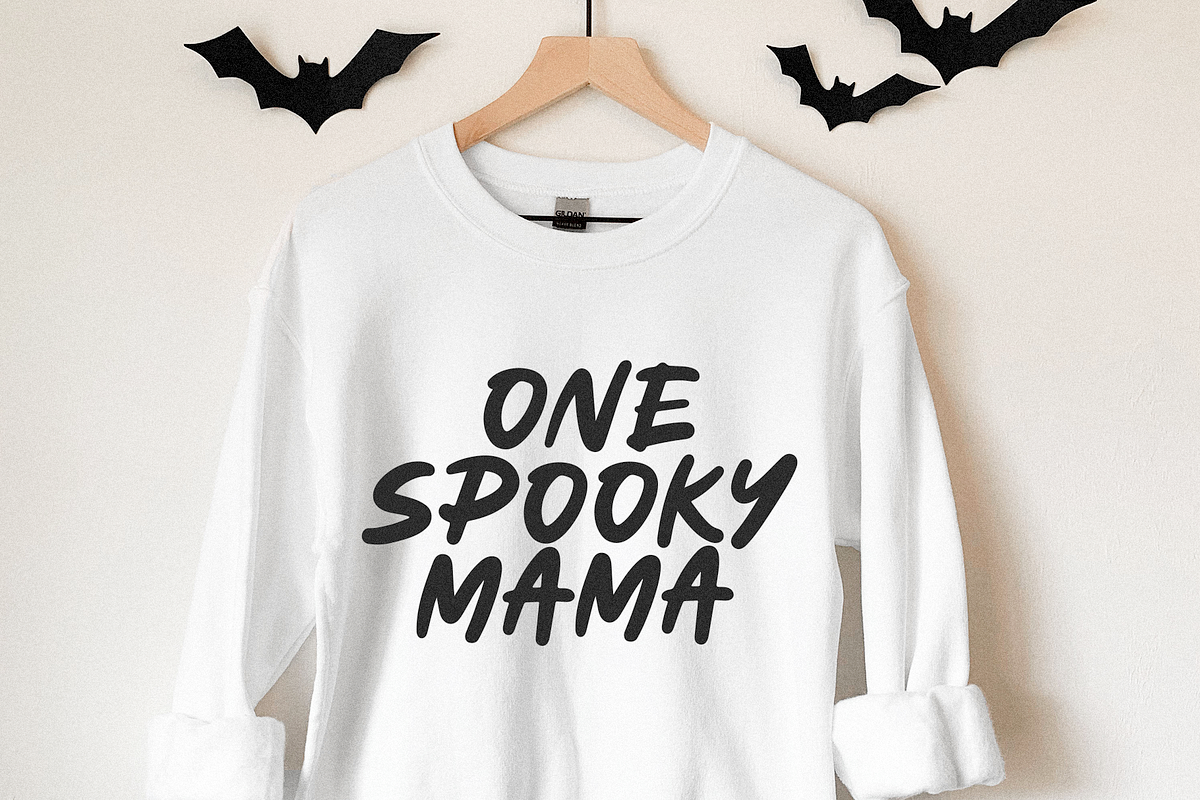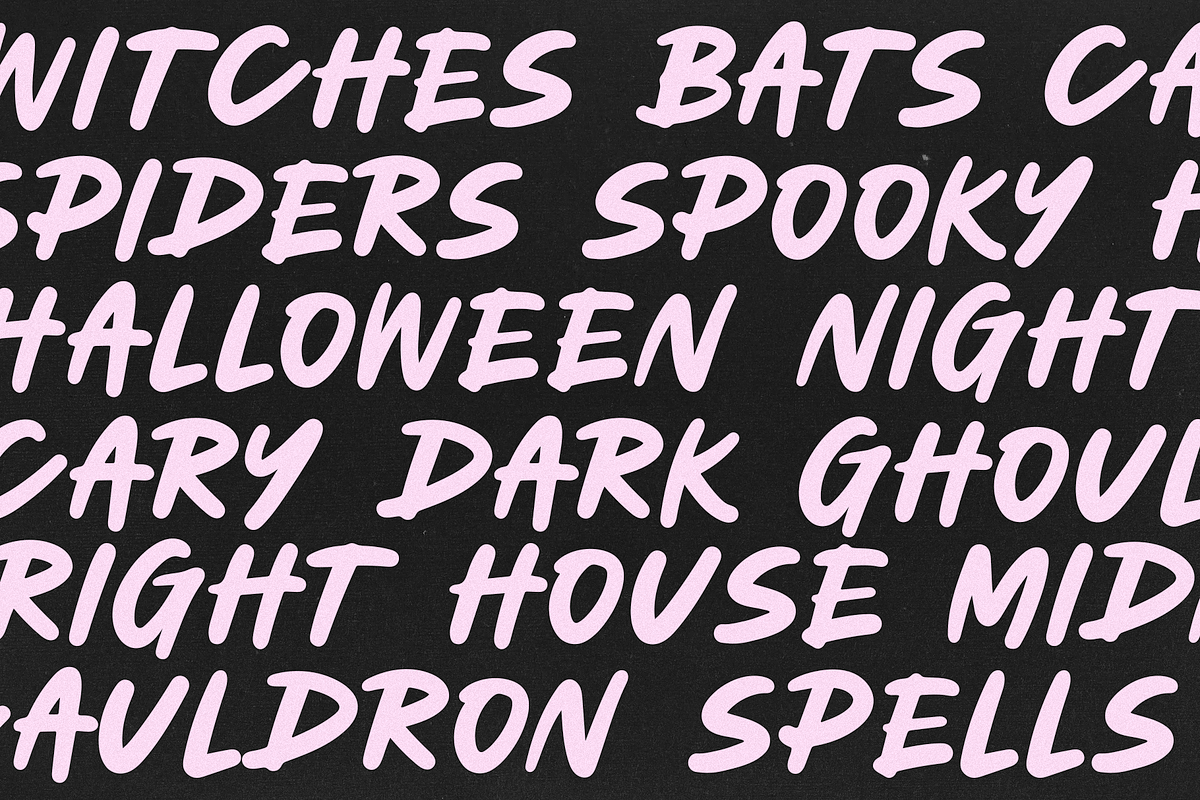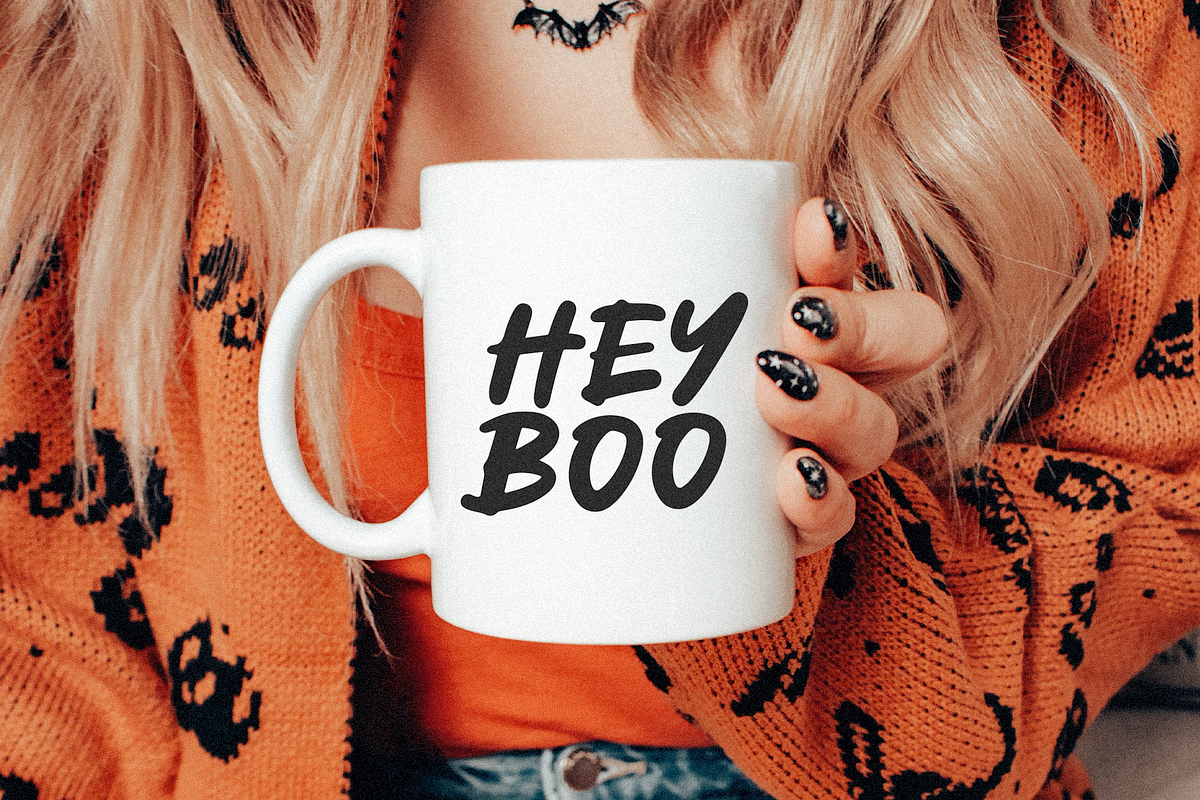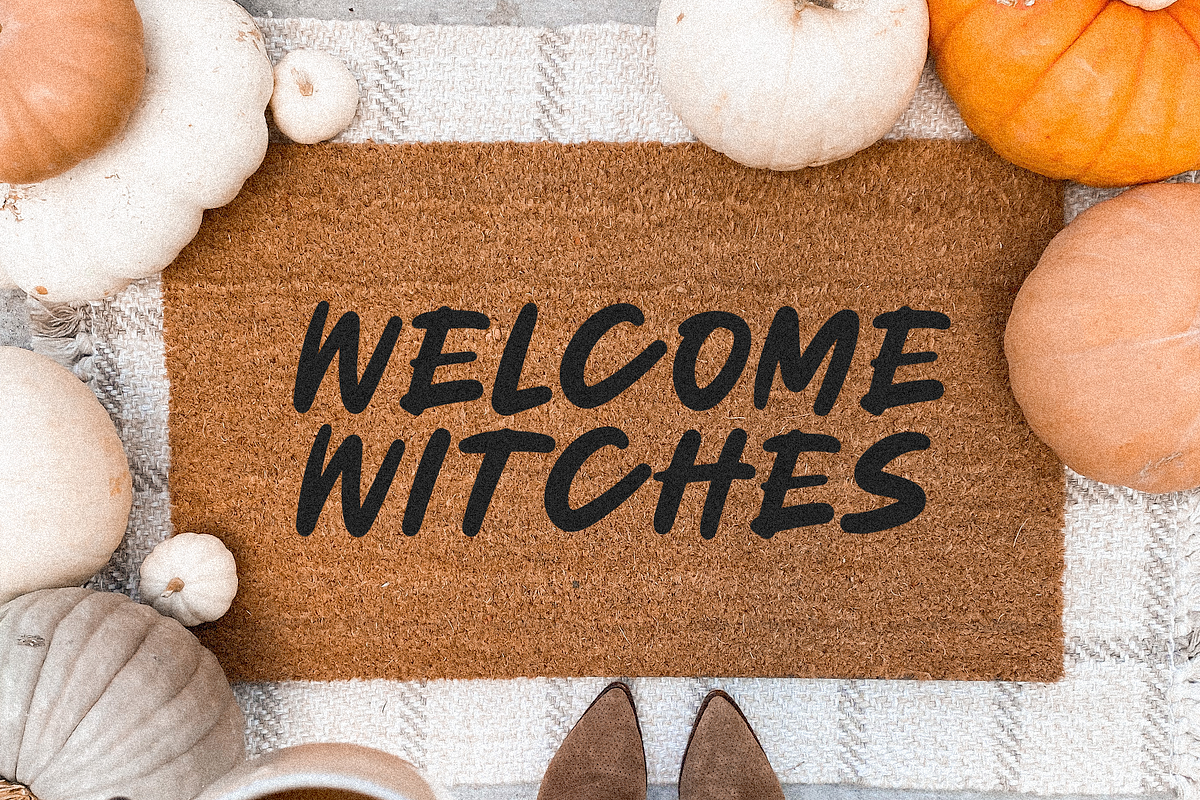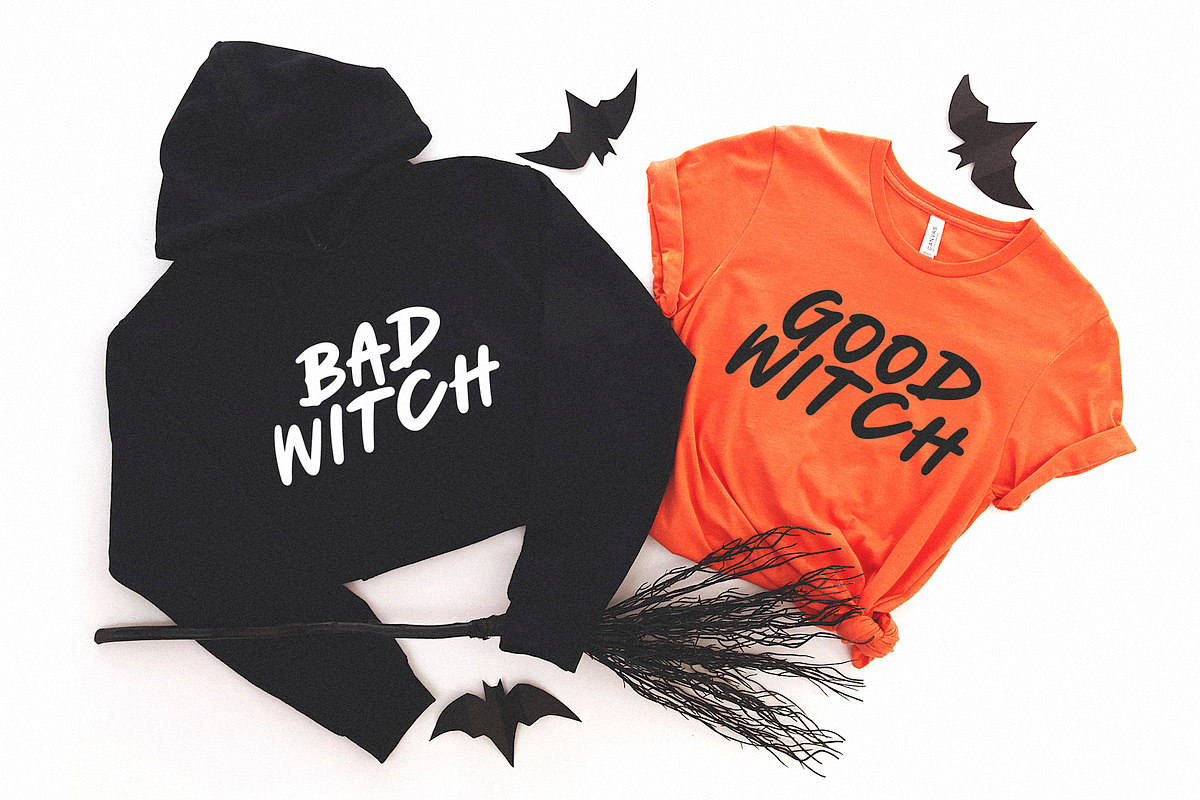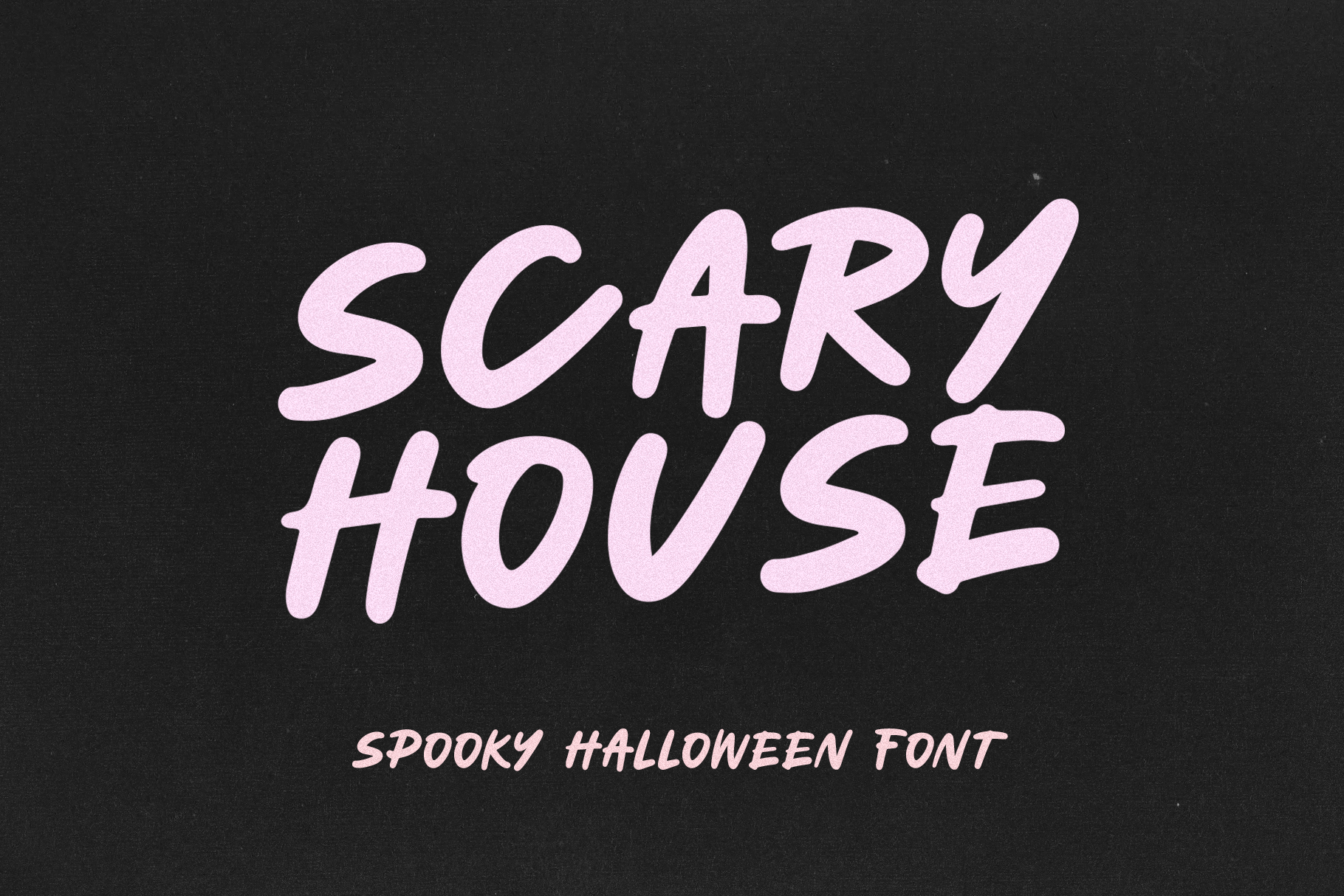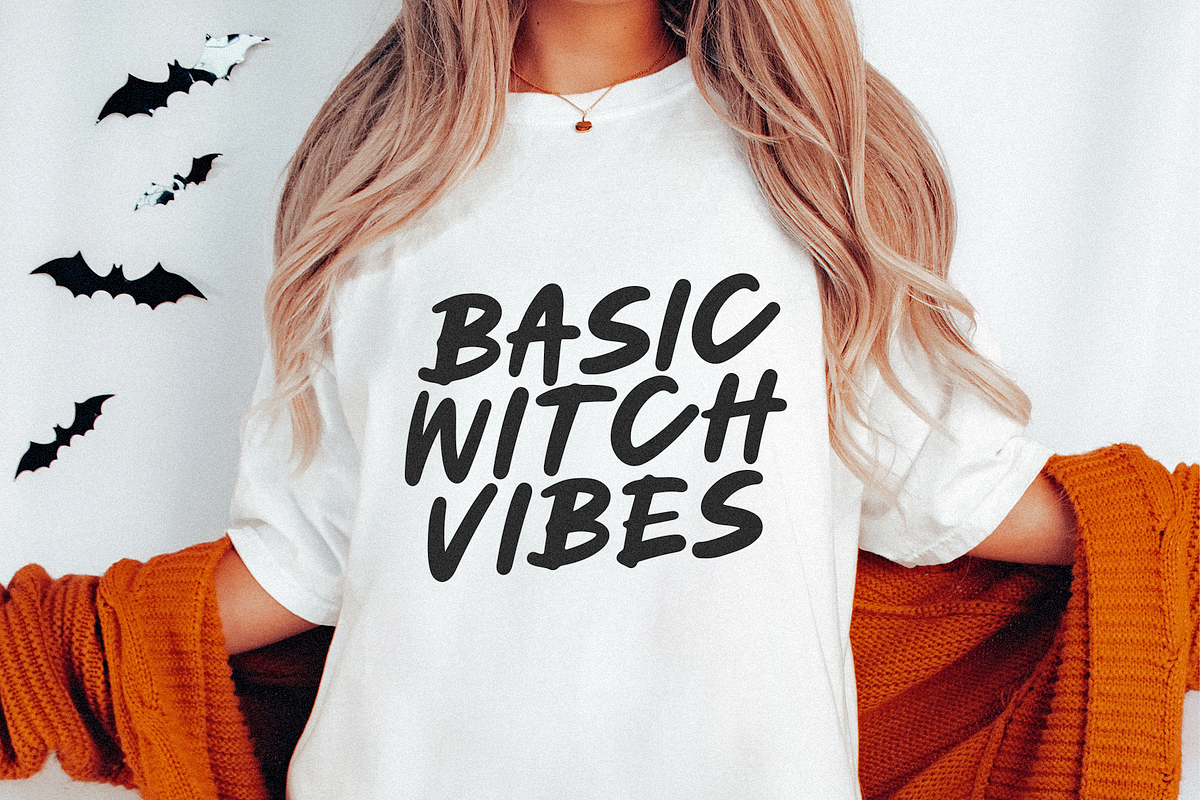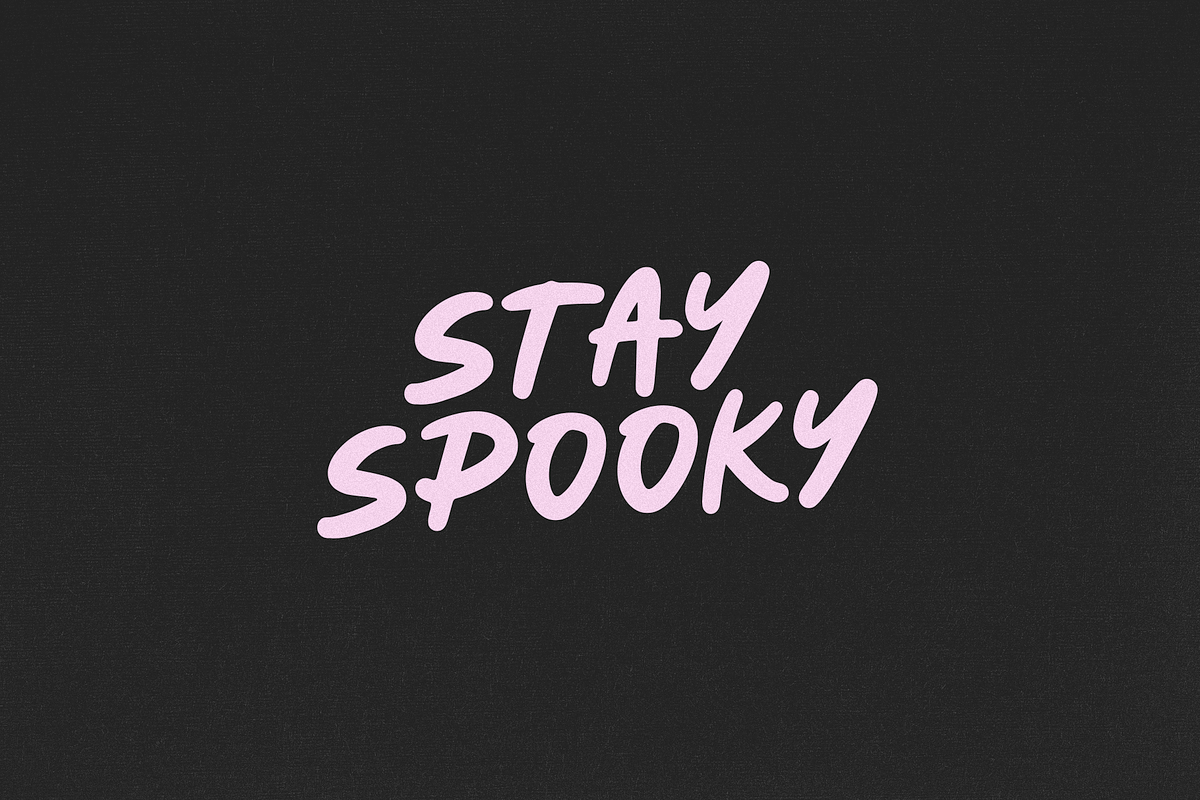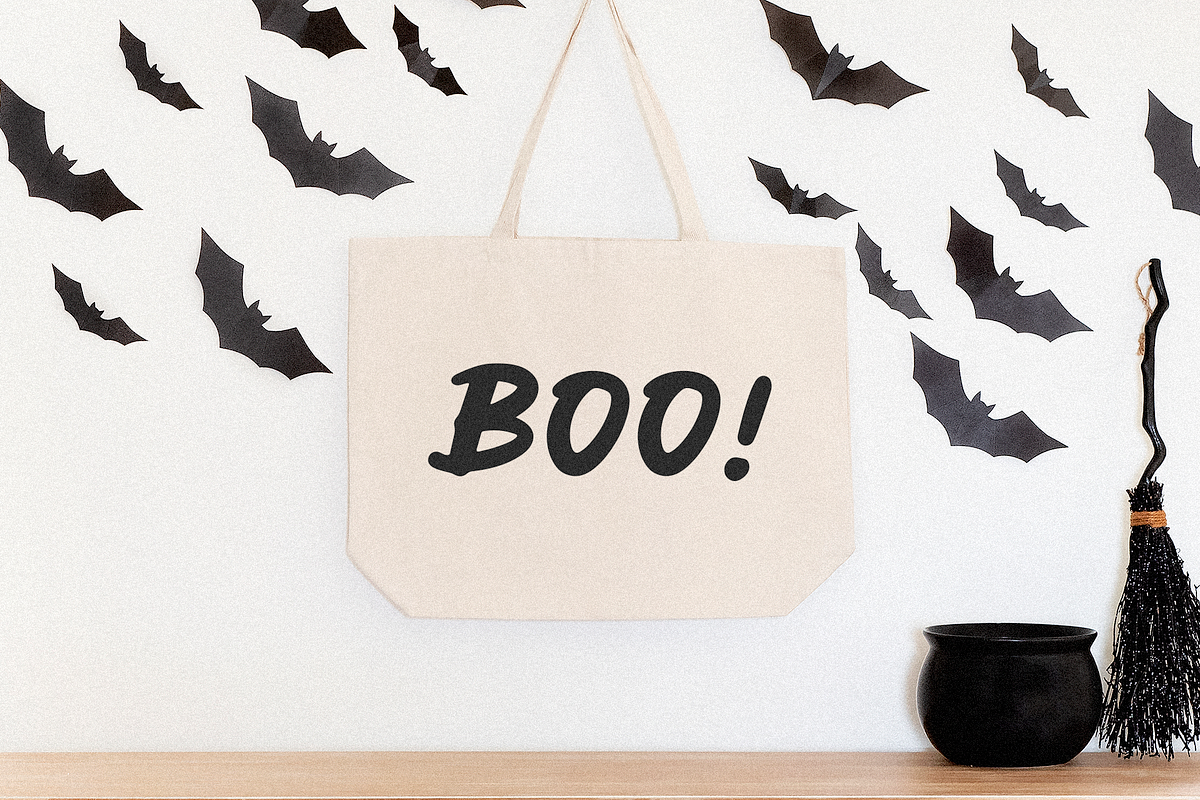
Scary House | Spooky Halloween Font
Scary House is a casual handwritten font with a spooky vibe!
This font is perfect for your halloween designs, shirts, logos, doormats, stickers, procreate designs, instagram quotes, spooky svg files and more!